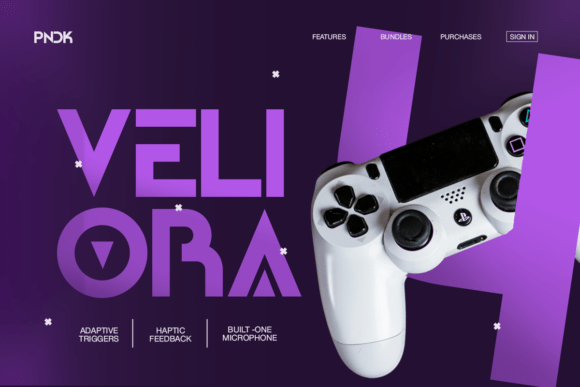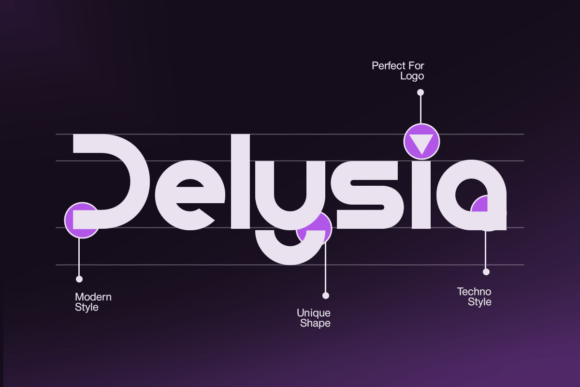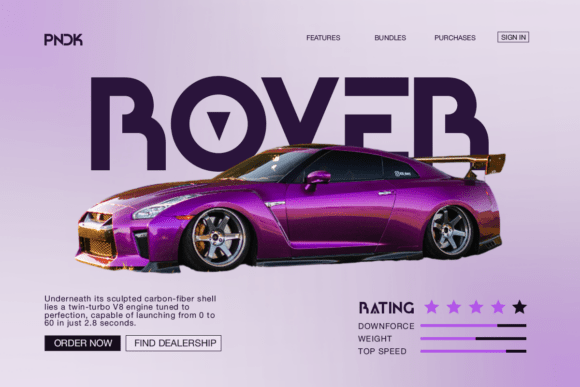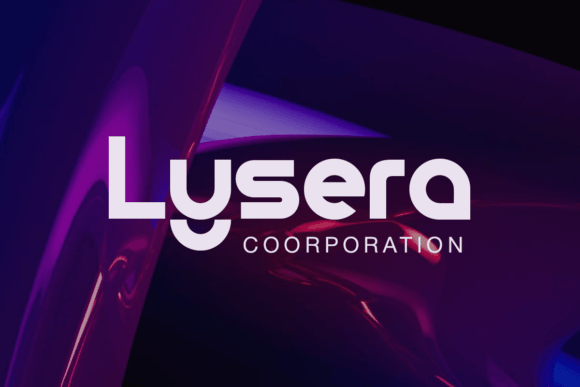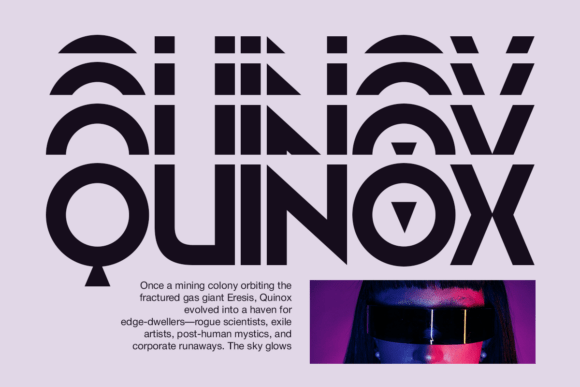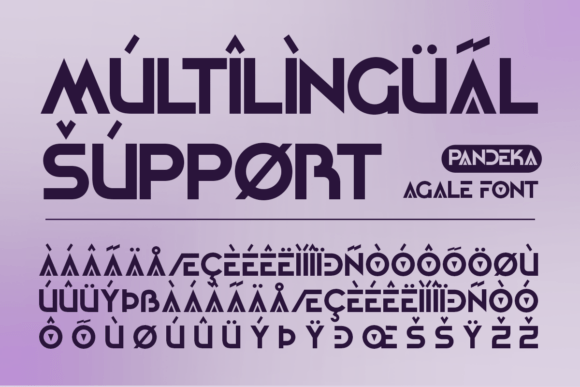
Introducing Agale Font: The Ultimate Modern Techno Display Font
In the world of digital design, a font can make all the difference in creating a lasting impression. For designers and crafters looking for a modern, futuristic, and bold font, Agale Font is the perfect choice. This cutting-edge techno display font combines sharp geometric elegance with a futuristic style, making it ideal for high-tech branding, gaming, esports, automotive, gadgets, UI/UX, and space-themed projects.
What Makes Agale Font Stand Out?
Agale Font boasts a range of features that set it apart from other fonts. Its bold letterforms and distinct modular construction give it a unique, futuristic look that’s sure to grab attention. The font’s design is inspired by the sleek lines and geometric shapes of modern technology, making it perfect for projects that require a strong sci-fi or cyber aesthetic.
Key Features of Agale Font
- Uppercase and Lowercase Characters: Agale Font includes a full range of uppercase and lowercase characters, ensuring that you have the flexibility to create dynamic and engaging text.
- Numerals and Symbols: The font also includes a set of numerals and symbols, making it easy to create complex designs and layouts.
- Multilingual Support: With multilingual support, Agale Font can be used for global projects, ensuring that your design looks great no matter where it’s displayed.
- Alternate Characters and Stylistic Sets: Agale Font includes alternate characters and stylistic sets, giving designers the tools to create unique and impactful visual identities.
Perfect for High-Tech Branding and Design
Agale Font is specifically designed for high-tech branding, gaming, esports, automotive, gadgets, UI/UX, and space-themed projects. Its bold, futuristic style makes it perfect for creating sleek product branding, digital interfaces, and other high-tech designs. Whether you’re creating a logo, website, or mobile app, Agale Font is the perfect choice.
Why Choose Agale Font?
There are many reasons why designers and crafters should choose Agale Font for their next project. Here are just a few:
- Unique and Futuristic Style: Agale Font has a unique and futuristic style that’s sure to grab attention.
- Highly Versatile: With its full range of characters, numerals, and symbols, Agale Font is highly versatile and can be used for a wide range of projects.
- Easy to Use: Agale Font is easy to use and can be easily integrated into your design workflow.
- Perfect for Global Projects: With multilingual support, Agale Font is perfect for global projects and can be used to create designs that look great no matter where they’re displayed.
How to Use Agale Font in Your Design
Using Agale Font in your design is easy. Here are a few tips to get you started:
- Pair it with a Sans-Serif Font: Agale Font looks great when paired with a sans-serif font. Try pairing it with a font like Open Sans or Montserrat.
- Use it for Headings and Titles: Agale Font is perfect for headings and titles. Use it to create bold and eye-catching text that grabs attention.
- Experiment with Different Colors: Agale Font looks great in a range of colors. Experiment with different colors to find the perfect look for your design.